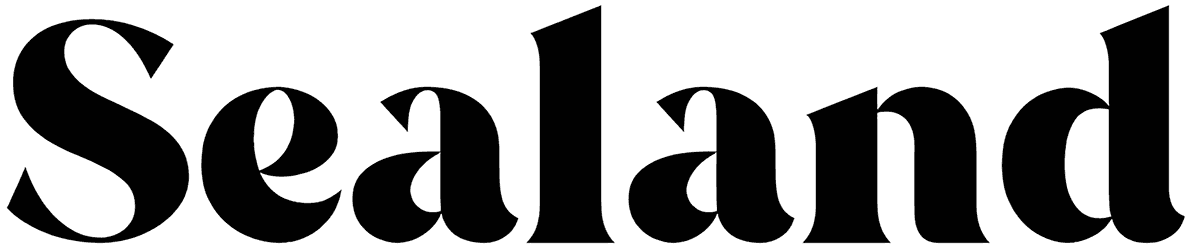
Sealand Font
Whether you are new to graphic design or have been in the field for a long time, you need Sealand in your collection. This serif font can add a traditional feel to your writing and is used in places where there are long texts.
Using this font can always keep you on the path of modernity. Because it has a timeless and uncomplicated feel that looks very powerful at all times, even without numbers.